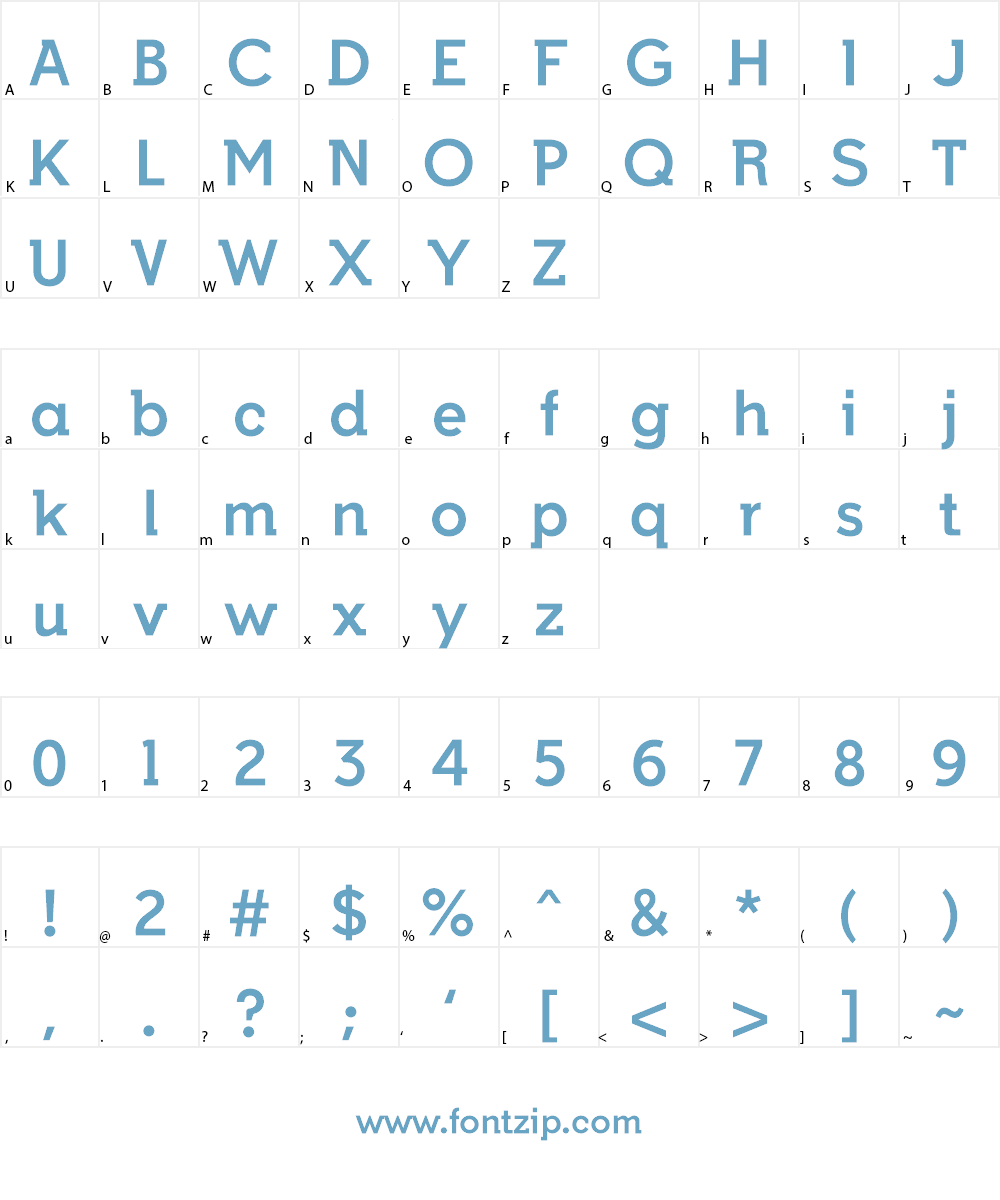
SemiSerif Fonts made especially for publishing or advertising graphic design, excellent readability and use.
Fuente Semiserif hecha para diseño editorial o diseño gráfico publicitario, excelente legibilidad y las funciones avanzadas OpenType de la versión comercial.